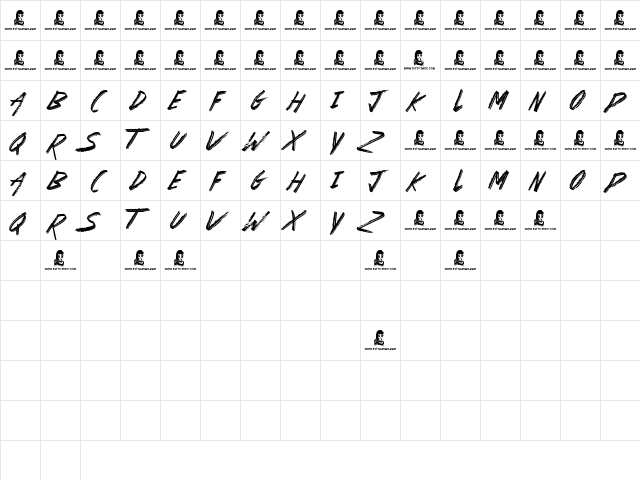
Hey Now Regular
Design Context for Hey Now Typeface
Hey Now is a composed and adaptable typeface that performs quietly and consistently across a wide range of design contexts.